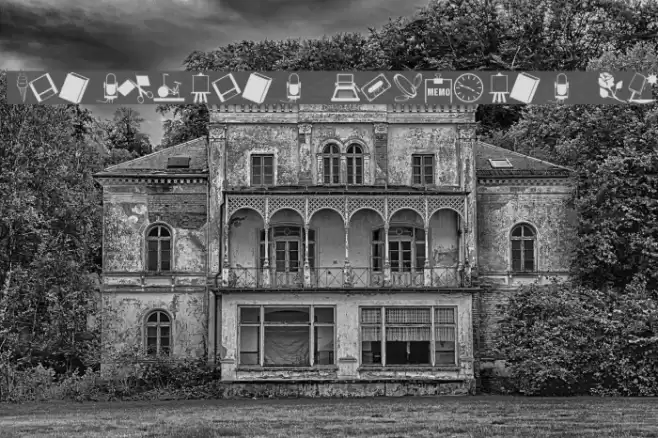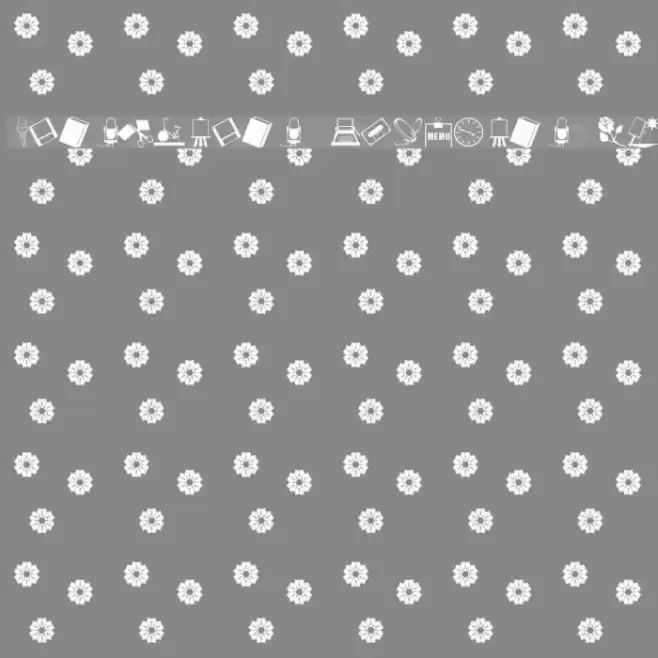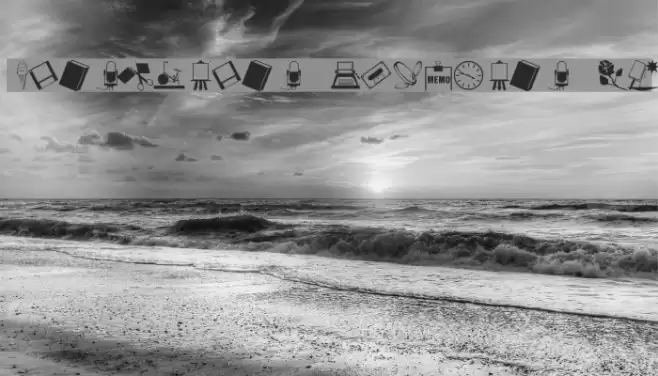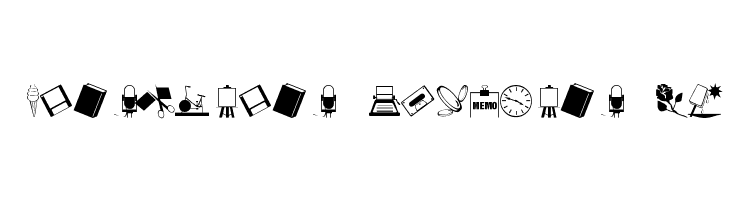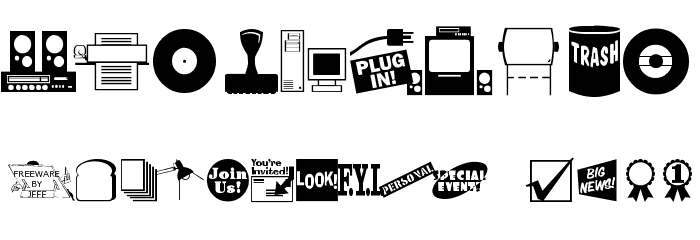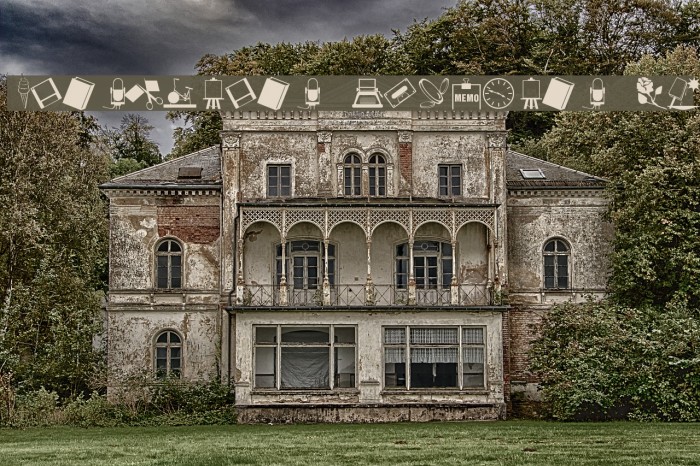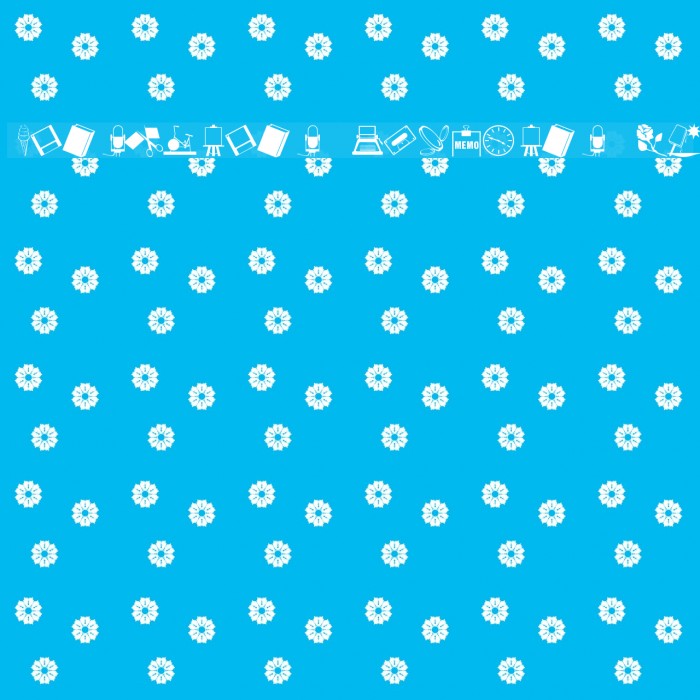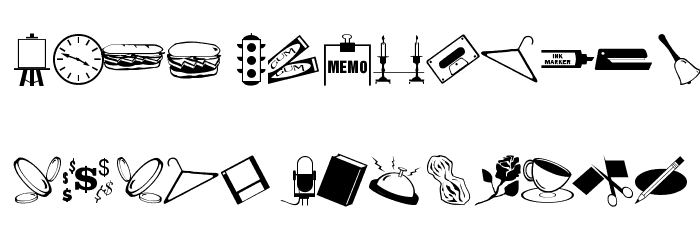
ArtsyParts Dingbats JL Font
ArtsyParts Dingbats JL Description
A collection of playful and varied pictograms and icons, each representing different objects or concepts such as food, office supplies, technology, and events, rendered in a bold, high-contrast black-and-white style with simple, easily recognizable shapes.
A decorative dingbat font featuring assorted icons and pictograms from Uncategorized fonts.
- Proposed Projects: Event flyers, scrapbooking, educational materials, infographics, digital stickers, decorative headings.
- Overall Style: Decorative, Playful
- Use Case: Icons, Decorative elements, Visual accents